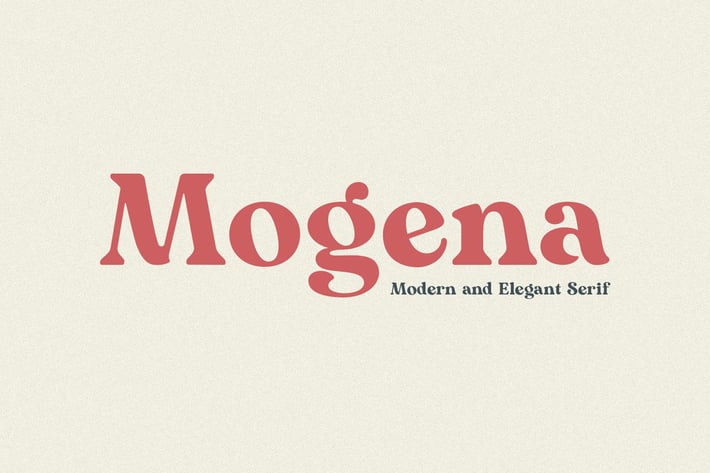
Mogena - Elegant Serif Font
Mogena is a modern and elegant serif font. Mogena is well-suited for advertising, branding, logotypes, packaging, titles, headlines and editorial design.
Mogena is perfect for many different projects such as logos & branding, invitation, stationery, wedding designs, social media posts, advertisements, printed quotes, product packaging, product designs, label, photography, watermark, special events or anything.